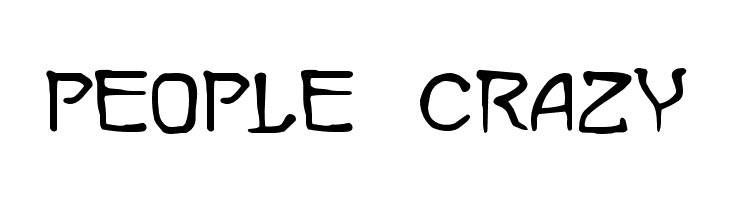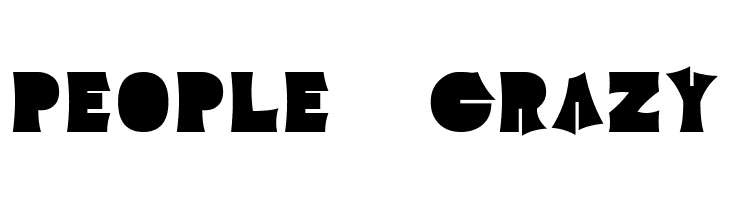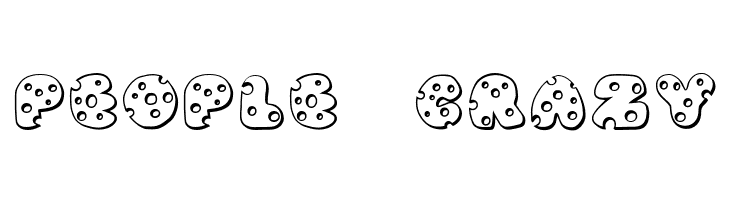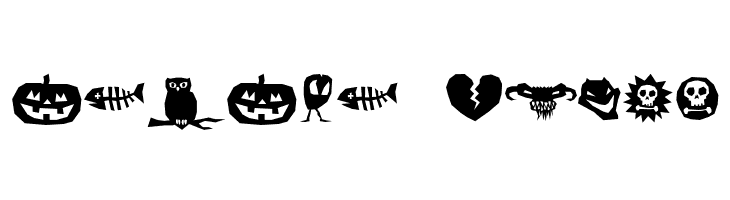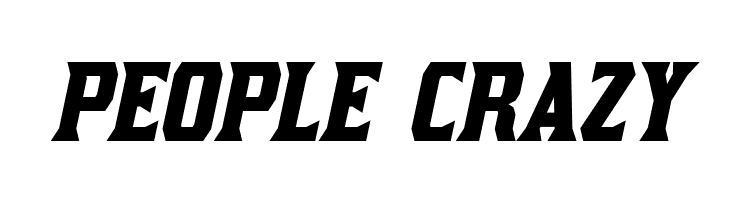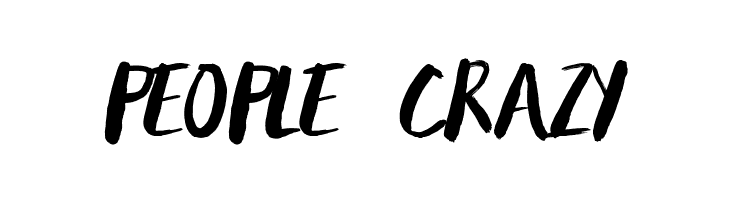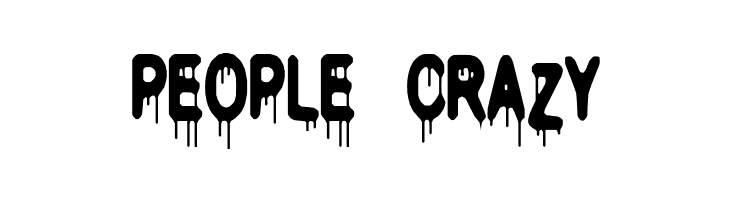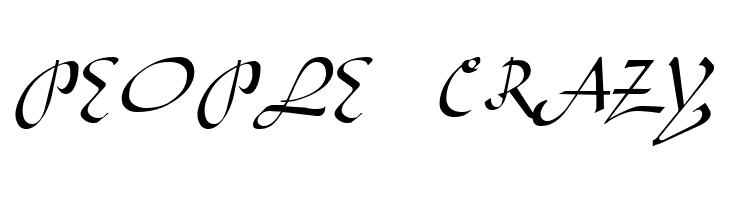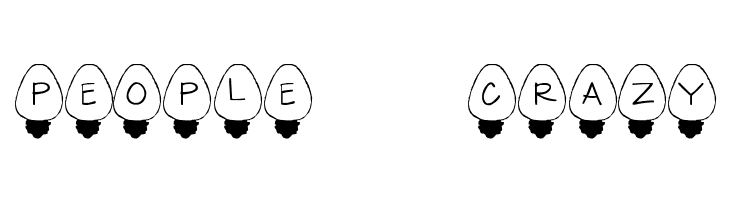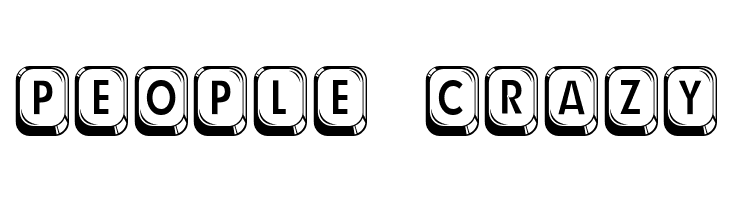
A bold, angular font with a futuristic and geometric style.
A whimsical, hand-drawn style font with playful, wavy strokes.
A modern, geometric sans-serif font with a clean and professional appearance.
A playful and quirky font with irregular, dynamic letterforms.
A bold, playful font with chunky, whimsical characters.
A bold, edgy font with sharp angles and thick strokes, perfect for standout designs.
A playful, cheese-inspired font with bold, rounded letters and fun details.
Halloween-themed pictogram font with spooky illustrations.
A bold, expressive handwritten font with dynamic brush strokes.
A bold, dripping font with a graffiti-inspired style.
An ornate blackletter font with intricate flourishes and a gothic style.
A bold, shadowed sans-serif font with a modern, three-dimensional look.
A bold, jagged font with dynamic and irregular shapes.
A chaotic, distressed font with jagged, uneven strokes for a grunge aesthetic.
A bold, italicized font with a futuristic and angular design.
A bold, geometric font with rounded characters and a modern industrial feel.
A bold, shadowed decorative font with a three-dimensional effect.
A decorative, calligraphic font with swirling, expressive strokes.
A bold, high-contrast font with elongated, geometric characters.